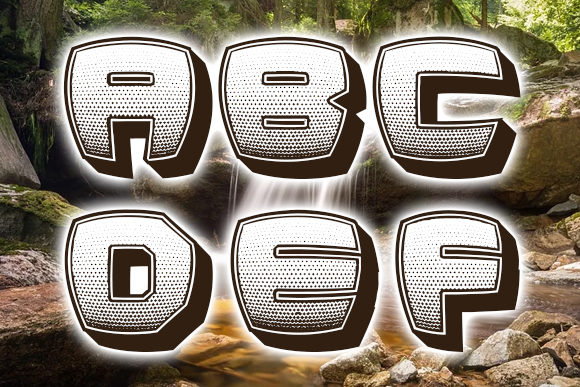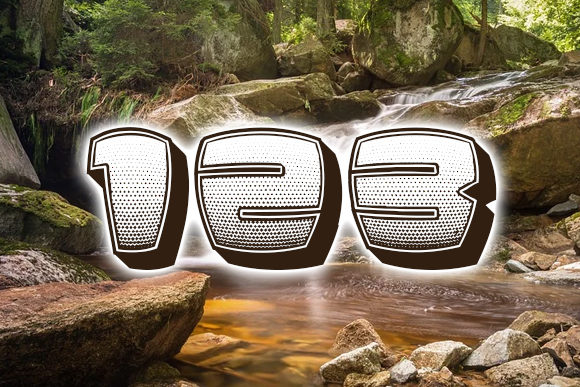
Bach Font: Elevate Your Designs with this Stunning Decorative Font
Are you tired of using the same old fonts for your designs? Look no further than the Bach Font, a decorative font that is sure to take your posters, flyers, and prints to the next level. With its unique and elegant style, Bach Font is perfect for designers and crafters looking to add a touch of sophistication to their work.
What is Bach Font?
Bach Font is a decorative font that is inspired by the classical music era. Its intricate and ornate design makes it perfect for use in a variety of design projects, from posters and flyers to invitations and prints. The font is named after the famous composer Johann Sebastian Bach, and its elegant style is sure to evoke the same sense of refinement and culture as his music.
Features of Bach Font
So what makes Bach Font so special? Here are just a few of its key features:
- Unique and Elegant Design: Bach Font has a distinctive and ornate design that is sure to stand out from the crowd.
- Highly Versatile: Whether you’re designing a poster, flyer, or print, Bach Font is sure to look stunning.
- Endless Possibilities: With Bach Font, the possibilities are endless. Use it to create beautiful designs that showcase your creativity and style.
- Experiment with Different Sizes and Styles: Bach Font looks great in a variety of sizes and styles, so don’t be afraid to experiment and find the look that works best for your design.
- Pair it with Other Fonts: Bach Font pairs well with a variety of other fonts, so try combining it with different fonts to create a unique and interesting look.
- Use it to Add Emphasis: Bach Font is perfect for adding emphasis to your design. Use it to highlight important information or to create a focal point.
- Adds a Touch of Sophistication: Bach Font is sure to add a touch of elegance and refinement to your designs.
- Helps You Stand Out: With its unique and ornate design, Bach Font is sure to help your designs stand out from the crowd.
- Perfect for a Variety of Projects: Whether you’re designing a poster, flyer, or print, Bach Font is sure to look great.
In conclusion, Bach Font is an awesome decorative font that is sure to elevate your designs to the next level. With its unique and elegant style, highly versatile design, and endless possibilities, Bach Font is perfect for designers and crafters looking to add a touch of sophistication to their work. So why wait? Download Bach Font today and start creating stunning designs that showcase your creativity and style.
- Use it Sparingly: While Bach Font is beautiful, it can be overwhelming if used too much. Use it sparingly to add emphasis and create a focal point.
- Experiment with Color: Bach Font looks great in a variety of colors, so don’t be afraid to experiment and find the look that works best for your design.